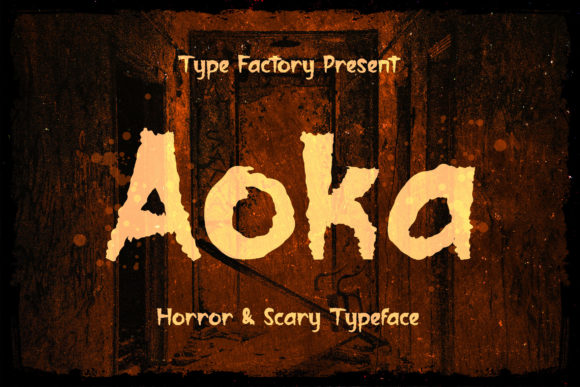
The Thrilling World of Aoka Font: A Designer’s Dream Come True
I still remember the day I stumbled upon the perfect font for a thriller-themed project I was working on. I had been searching for what felt like an eternity, trying out font after font, but none of them seemed to capture the essence of suspense and intrigue that I was looking for. That was until I discovered the Aoka font. With its violent, powerful, and rough display, Aoka instantly caught my attention and became the perfect fit for my project.
An Honest Review of Aoka Font
What I Love About Aoka Font
- ✨ Perfect for thriller and mystery-themed designs: Aoka’s bold and rugged appearance makes it an excellent choice for creating a sense of tension and suspense in your designs.
- ✅ Highly versatile: Aoka can be used for a wide range of design projects, from posters and flyers to social media graphics and website headers.
- 💥 Attention-grabbing: Aoka’s unique and edgy design ensures that your text will stand out and grab the attention of your audience.
While Aoka is an excellent font, it’s not without its quirks. For example, ⚠️ it may not be suitable for body text due to its bold and rugged design. Additionally, 🤔 some characters may not be suitable for use in certain contexts, such as in children’s book titles or other family-friendly content.
Aoka font comes with a range of OpenType features and glyphs that allow you to customize the font to your liking. Some of the features you can explore include:
- Stylistic alternates: Aoka font offers stylistic alternates that allow you to switch between different font styles.
- Glyphs: Aoka font comes with a range of glyphs that you can use to add decorative elements to your text.
The Backstory of Aoka Font
Aoka font was designed by a team of typographers who wanted to create a font that would evoke a sense of tension and suspense. The font was inspired by the dark and gritty aesthetic of thriller movies and was designed to be used for creating bold and eye-catching headlines.
Q: What is Aoka font best used for?
A: Aoka font is best used for creating bold and eye-catching headlines for thriller and mystery-themed designs.
Q: Can I use Aoka font for body text?
A: While Aoka font can be used for body text, it’s not recommended due to its bold and rugged design.